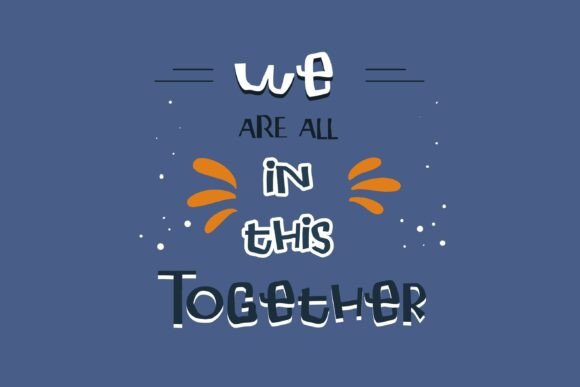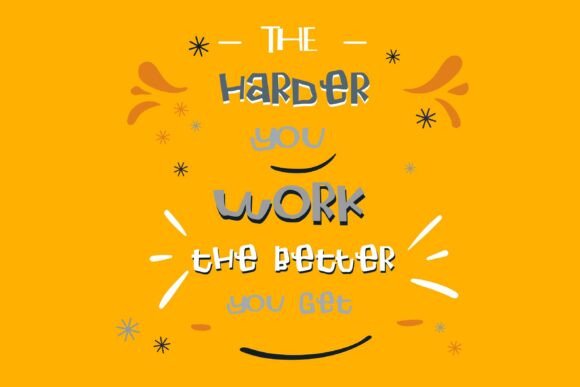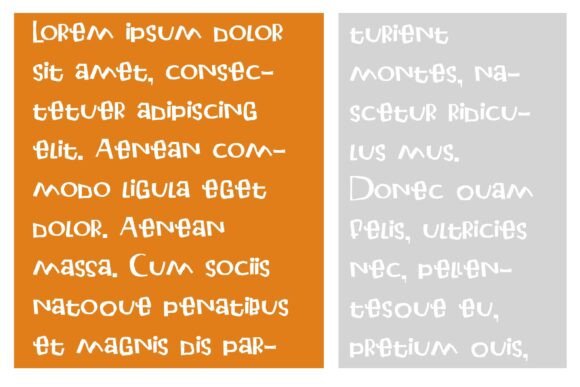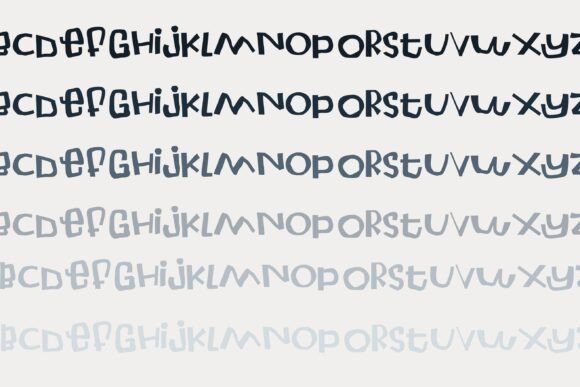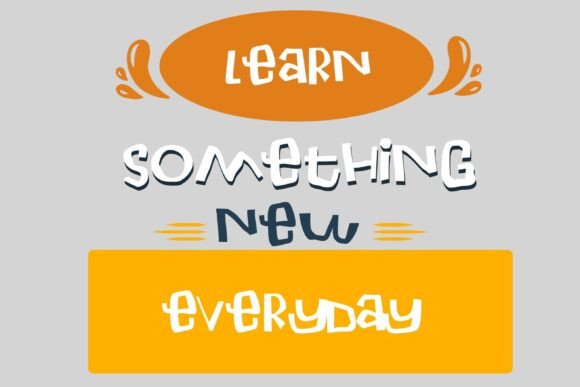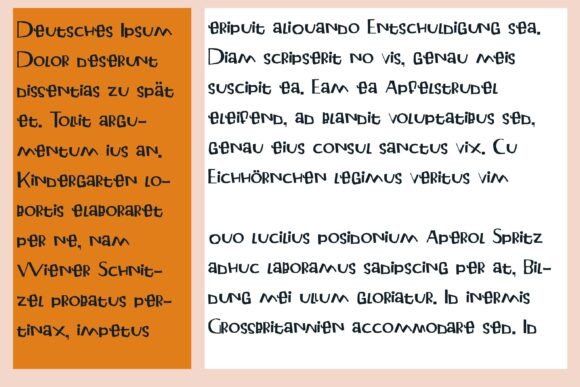
Abrazos Font: A Whimsical Sans Serif Font for Creative Projects
If you’re a designer or crafter looking for a unique and playful font to add a personal touch to your projects, look no further than Abrazos Font. This hand-crafted font is a whimsical sans serif font with chunky, rough, boxy lettering that’s perfect for creating eye-catching invitations, greeting cards, and other creative projects.
A hand-crafted font is a font that is designed to look like it was written by hand. It’s often used for invitations, greeting cards, and other items where a personal touch is desired. Handwritten fonts can be either formal or informal, and they can be used for a variety of purposes, from creating wedding invitations to designing social media graphics.
The Characteristics of Abrazos Font
Abrazos Font is a sans serif font, which means it doesn’t have the small lines or flourishes at the ends of the letters. This gives it a clean and modern look that’s perfect for creating bold and eye-catching text. The font has a chunky, rough texture that gives it a hand-crafted feel, making it perfect for projects where you want to add a personal touch.
Why Use Abrazos Font?
There are many reasons why you might want to use Abrazos Font in your projects. Here are a few:
- Unique and Playful**: Abrazos Font is a unique and playful font that’s sure to add a touch of personality to your projects. Its chunky, rough texture and boxy lettering make it perfect for creating eye-catching text that’s sure to stand out.
- Versatile**: Abrazos Font is a versatile font that can be used for a variety of purposes. Whether you’re creating invitations, greeting cards, or social media graphics, this font is sure to add a touch of whimsy and personality to your project.
- Easy to Read**: Despite its chunky texture, Abrazos Font is easy to read, even in small sizes. This makes it perfect for creating projects where you need to include a lot of text, such as invitations or flyers.
How to Use Abrazos Font
Using Abrazos Font is easy. Here are a few tips to get you started:
- Pair it with Other Fonts**: Abrazos Font pairs well with other fonts, especially serif fonts. Try pairing it with a font like Times New Roman or Georgia to create a bold and eye-catching contrast.
- Use it for Headings**: Abrazos Font is perfect for creating bold and eye-catching headings. Try using it for the title of your project, or for headings and subheadings.
- Experiment with Colors**: Abrazos Font looks great in a variety of colors. Try experimenting with different colors to find the one that works best for your project.
If you’re a designer or crafter looking to use Abrazos Font in your projects, here are a few tips to keep in mind:
- Keep it Simple**: Abrazos Font is a bold and eye-catching font, so it’s best to keep your design simple and uncluttered. Avoid using too many fonts or colors, and focus on creating a clean and simple design.
- Use it for DIY Projects**: Abrazos Font is perfect for DIY projects, such as creating handmade invitations or greeting cards. Try using it to add a personal touch to your project.
- Experiment with Different Sizes**: Abrazos Font looks great in a variety of sizes. Try experimenting with different sizes to find the one that works best for your project.
Abrazos Font is a unique and playful font that’s perfect for designers and crafters looking to add a personal touch to their projects. Its chunky, rough texture and boxy lettering make it perfect for creating eye-catching text that’s sure to stand out. Whether you’re creating invitations, greeting cards, or social media graphics, Abrazos Font is sure to add a touch of whimsy and personality to your project.